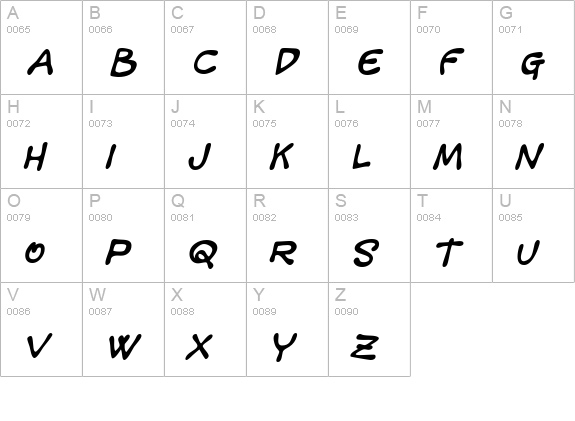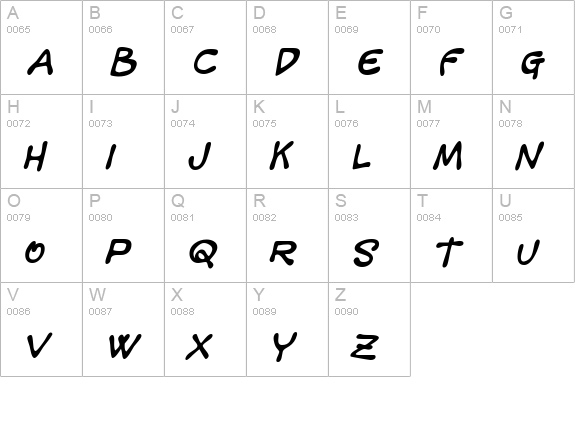
Mandingo BTN Cond BoldOblique is a distinctive, condensed-width variant in the Mandingo typeface family \xE2\x80\x94 well suited to design and typography projects.
Mandingo BTN Cond BoldOblique font is a striking and bold typeface that exudes confidence and power. With its condensed design and oblique slant, this font commands attention and adds a dynamic touch to any design project. Featuring strong, thick strokes and sharp angles, Mandingo BTN Cond BoldOblique font is perfect for headlines, logos, and branding materials. Its unique combination of condensed letterforms and oblique slant creates a sense of movement and energy, making it ideal for projects that require a modern and edgy look. Not only does Mandingo BTN Cond BoldOblique font make a bold statement, but it is also available for free download at FontsMarket.com. This means that designers and creatives can easily access this powerful font without any cost. Whether you are working on personal or commercial projects, this font is freely available to enhance your designs and make them truly stand out. With its versatility and eye-catching design, Mandingo BTN Cond BoldOblique font is a must-have for any designer looking to make a strong impact. Download it now from FontsMarket.com and experience the power and boldness it brings to your projects.